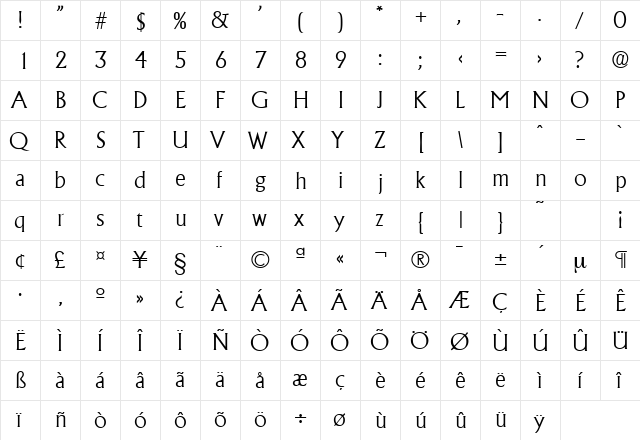
Adelon-Serial-Light Regular
Design Context for Adelon-Serial-Light Typeface
Adelon-Serial-Light takes a measured approach to typography — its balanced proportions and neutral character make it a reliable workhorse for both digital and print work. The delicate stroke weight brings airiness and refinement to layouts.